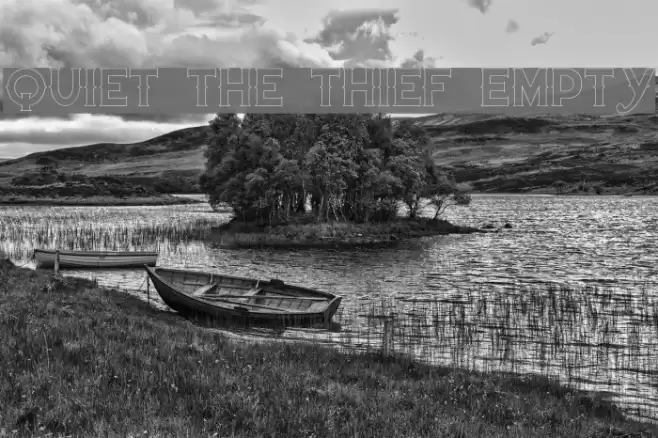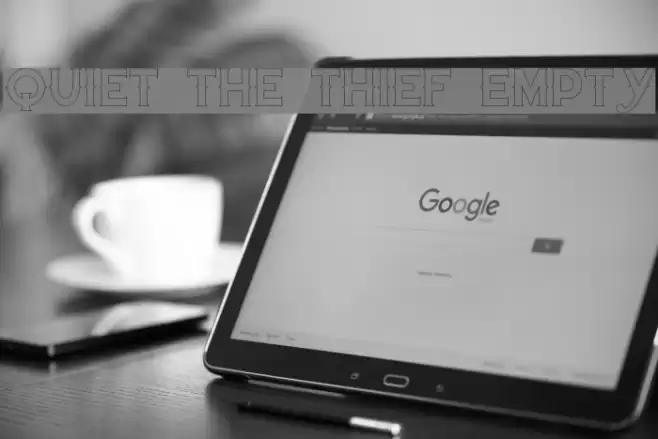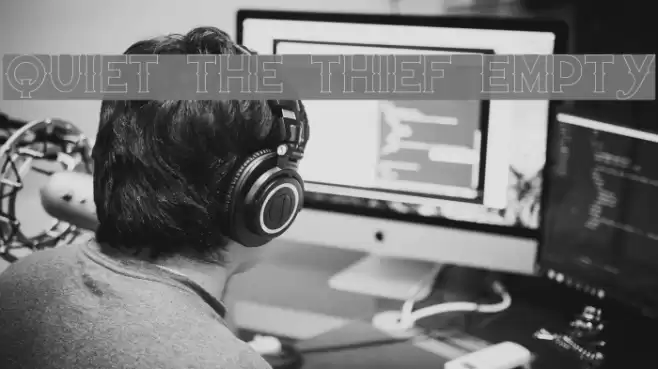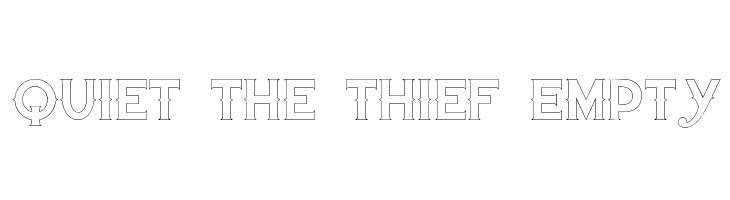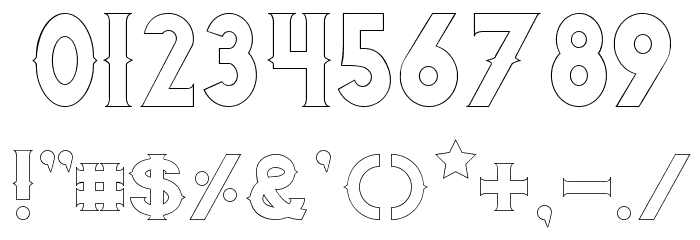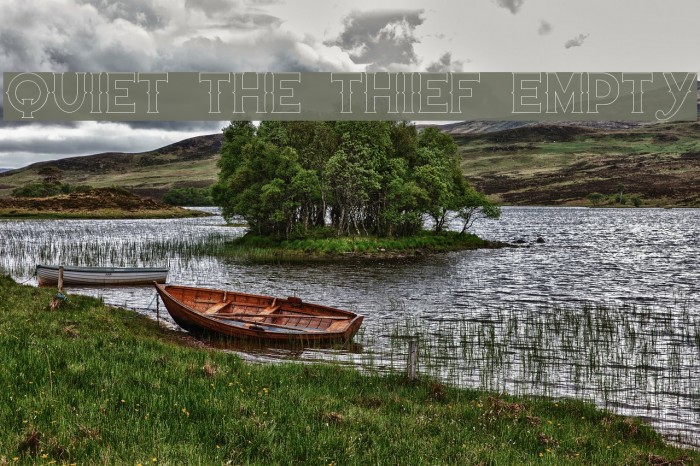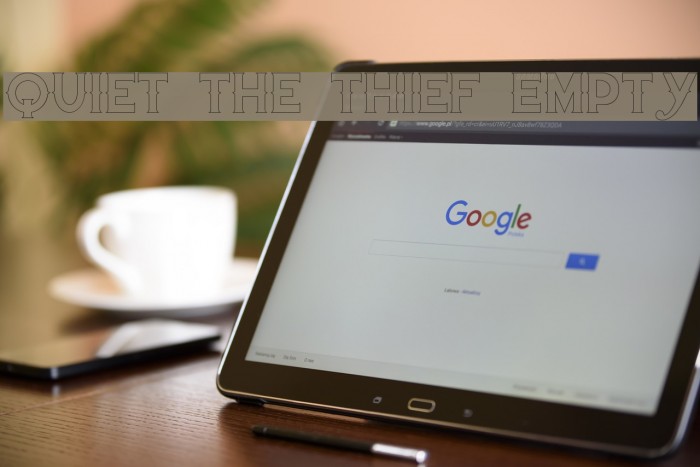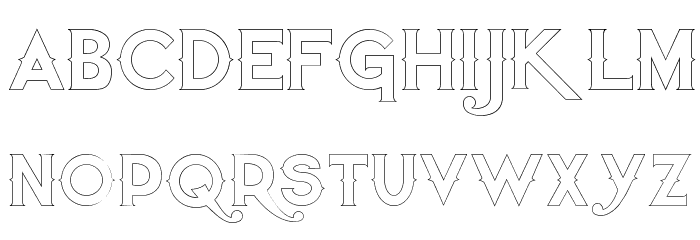
Quiet the Thief Empty Font
Quiet the Thief Empty Description
This font features a bold and decorative style with a hollow, outlined appearance. The uppercase letters are characterized by sharp angles and geometric shapes, giving them a modern and edgy look. The lowercase letters maintain a consistent style, with some characters featuring unique flourishes and curves that add a touch of elegance. The numerals are bold and easily readable, matching the overall aesthetic of the alphabet. Special characters are included, maintaining the same outlined style, which adds versatility to the font. The font's design is suitable for creating eye-catching headlines or logos, where a strong visual impact is desired.
A bold, outlined decorative font with geometric and modern elements from Uncategorized fonts.
- Proposed Projects: Ideal for branding, poster design, and any project requiring a strong visual impact.